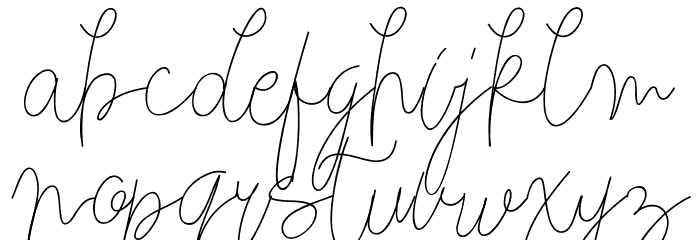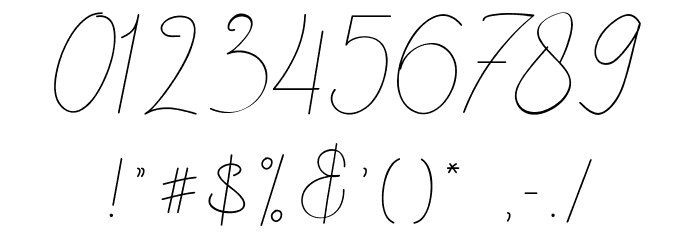
Justhin Font
This font features a flowing, cursive style with elegant, elongated strokes that give it a sophisticated and artistic appearance. The letters are connected in a fluid manner, reminiscent of traditional handwriting, yet with a modern twist. The uppercase letters are tall and graceful, while the lowercase letters maintain a consistent flow, enhancing readability. The numerals and special characters are designed to complement the overall style, maintaining the same fluidity and elegance. This font is perfect for projects that require a personal touch or a sense of elegance and refinement.
A flowing, cursive font with elegant, elongated strokes and a modern twist.